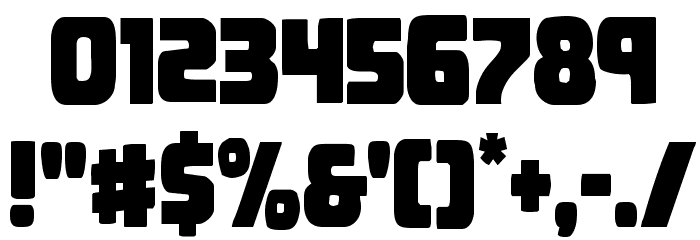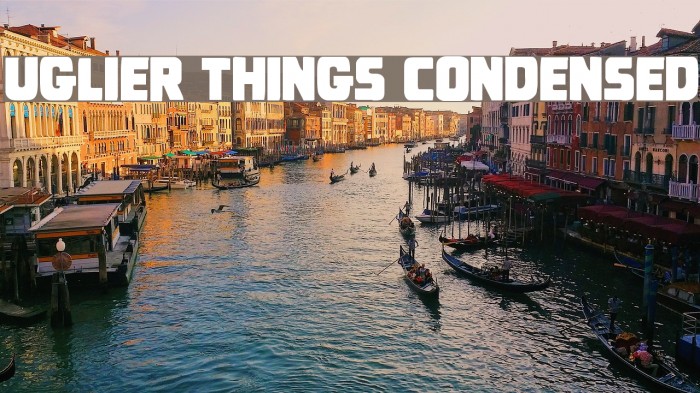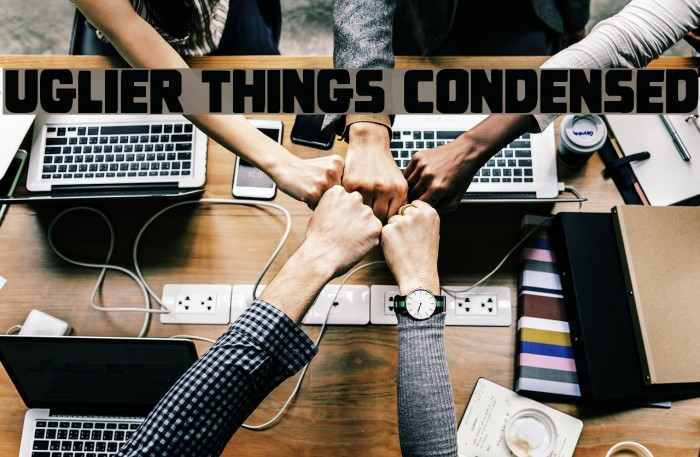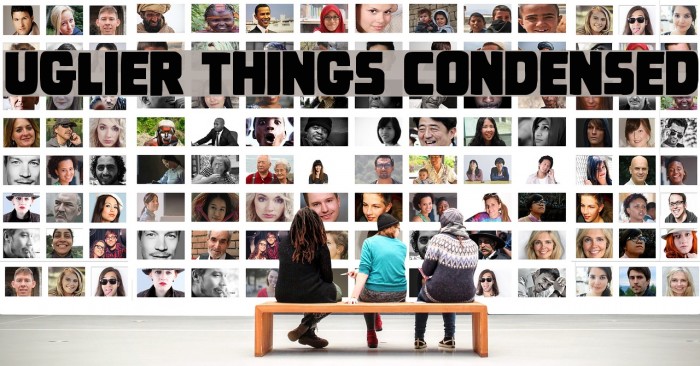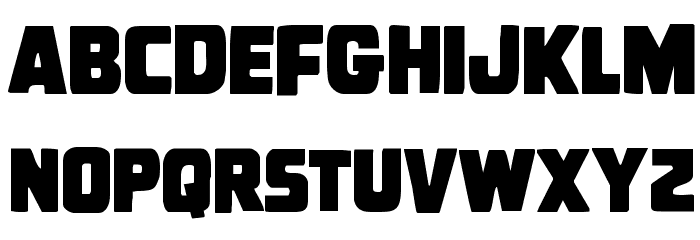
Uglier Things Condensed Font
Uglier Things Condensed Description
This font features bold, blocky characters with a strong presence, ideal for making a statement. The uppercase letters are uniform in height, with a condensed width that gives a compact appearance. The numbers and special characters maintain the same boldness, ensuring consistency across all text elements. The font's thick strokes and minimal contrast create a solid and impactful look, suitable for attention-grabbing designs. Its geometric shapes and clean lines contribute to a modern aesthetic, while the condensed form allows for efficient use of space.
A bold, condensed font with a modern, geometric style from Uncategorized fonts.
- Proposed Projects: Ideal for posters, headlines, logos, and branding materials that require a strong visual impact.
- Character Spacing: Tight